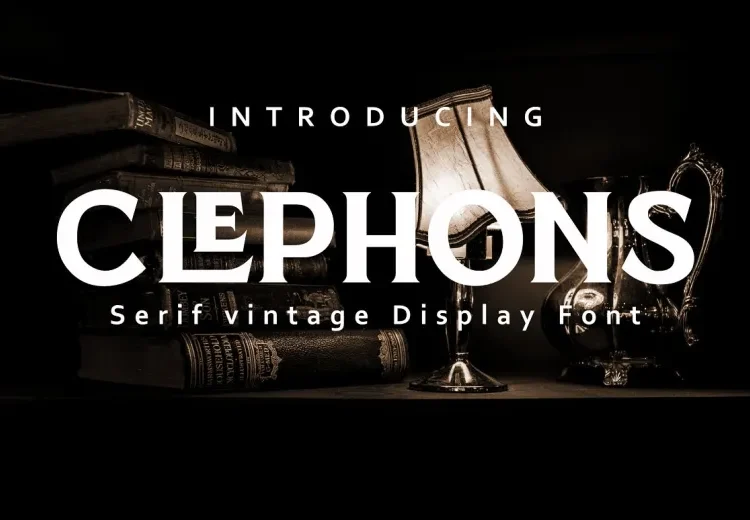
Clephons Font
Clephons is an elegant serif display font that embodies classic sophistication. Designed as an all-capital typeface, Clephons pays tribute to traditional lettering while infusing it with modern elegance. This font is perfect for headlines, branding, and logo designs that require a vintage or classic theme, effortlessly capturing the essence of a bygone era.
Key Features of Clephons:
• Classic Sophistication: Clephons exudes timeless elegance, making it ideal for projects that need a refined, vintage touch.
• All-Capital Typeface: This design choice emphasizes the font’s homage to classic lettering, ensuring every character stands out.
• Versatile Application: Whether used in headlines, branding, or logos, Clephons adds a touch of class and nostalgia to any design.
Ideal Uses:
• Headlines & Titles: Perfect for making a strong, sophisticated statement in both print and digital media.
• Branding & Logos: Adds a vintage charm to brand identities, making them memorable and impactful.
• Classic Themes: Ideal for designs that require a retro feel, such as posters, book covers, and packaging.